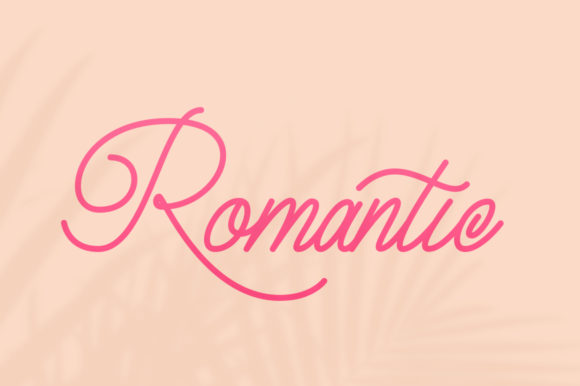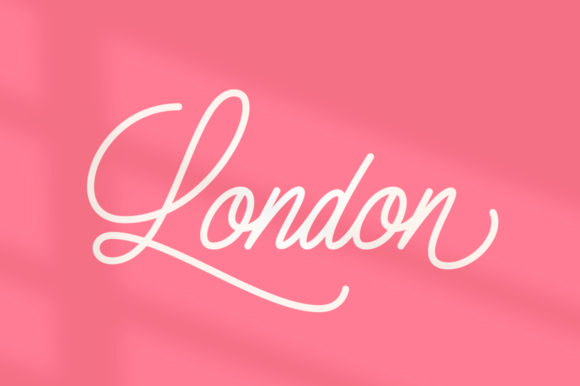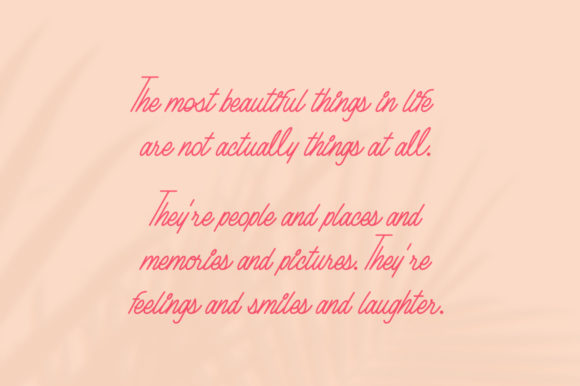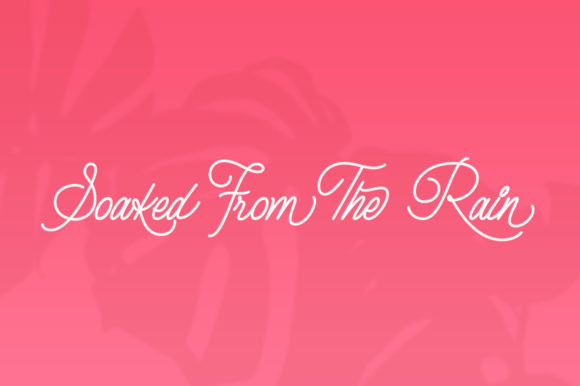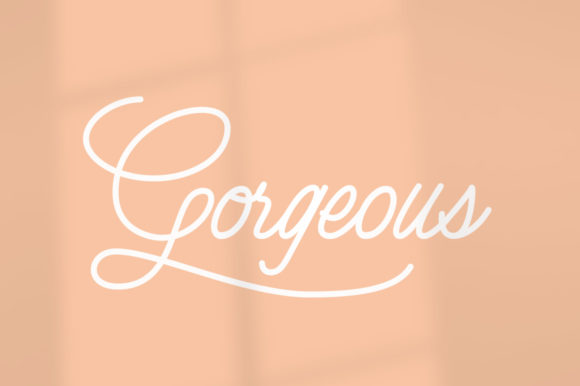
Introduction to Kip & Val Font
As a designer, have you ever been in the middle of a creative project, staring at a blank page, and suddenly, the perfect font appears in your mind? It’s that moment of pure magic when everything falls into place. For many designers, the Kip & Val Font is that magic moment – a luxurious and modern script font that exudes a casual style, making it perfect for any design project.
With its beautiful appearance and high-quality design, the Kip & Val Font has become a go-to design resource for creatives around the world. Its transparent background and sleek lines make it an ideal choice for any project, from branding to typography. Whether you’re working on a commercial design or a personal project, the Kip & Val Font is a valuable asset that will elevate your design to the next level.
Key Features of Kip & Val Font
- Transparent background, allowing for seamless integration into various design backgrounds.
- Available in a single font style, with a clear and legible font face, perfect for body text or headlines.
Honest Review: Kip & Val Font
I recently stumbled upon the Kip & Val Font, a beautiful and high-quality design resource that’s perfect for any creative project. I must say, I was impressed by its clean and elegant design.
- ✨ It has a transparent background, allowing for seamless integration with any design.
- ✨ The font is highly versatile and can be used for a wide range of creative projects.
- ⚠️ It’s not available in as many weights as some other fonts, which may limit its use in certain design projects.
Overall, I’m extremely impressed with the Kip & Val Font. It’s a high-quality design resource that’s perfect for designers looking for a clean and elegant font. While it may have some limitations, it’s still an excellent choice for any creative project. I highly recommend giving it a try!
To get the most out of Kip & Val Font, experiment with different font sizes, colors, and styles. You can also combine it with other design elements to create a unique look.
Kip & Val Font is suitable for a variety of creative projects, including branding, marketing materials, and digital products. Its high-quality design and transparent background make it a great resource for designers and non-designers alike.